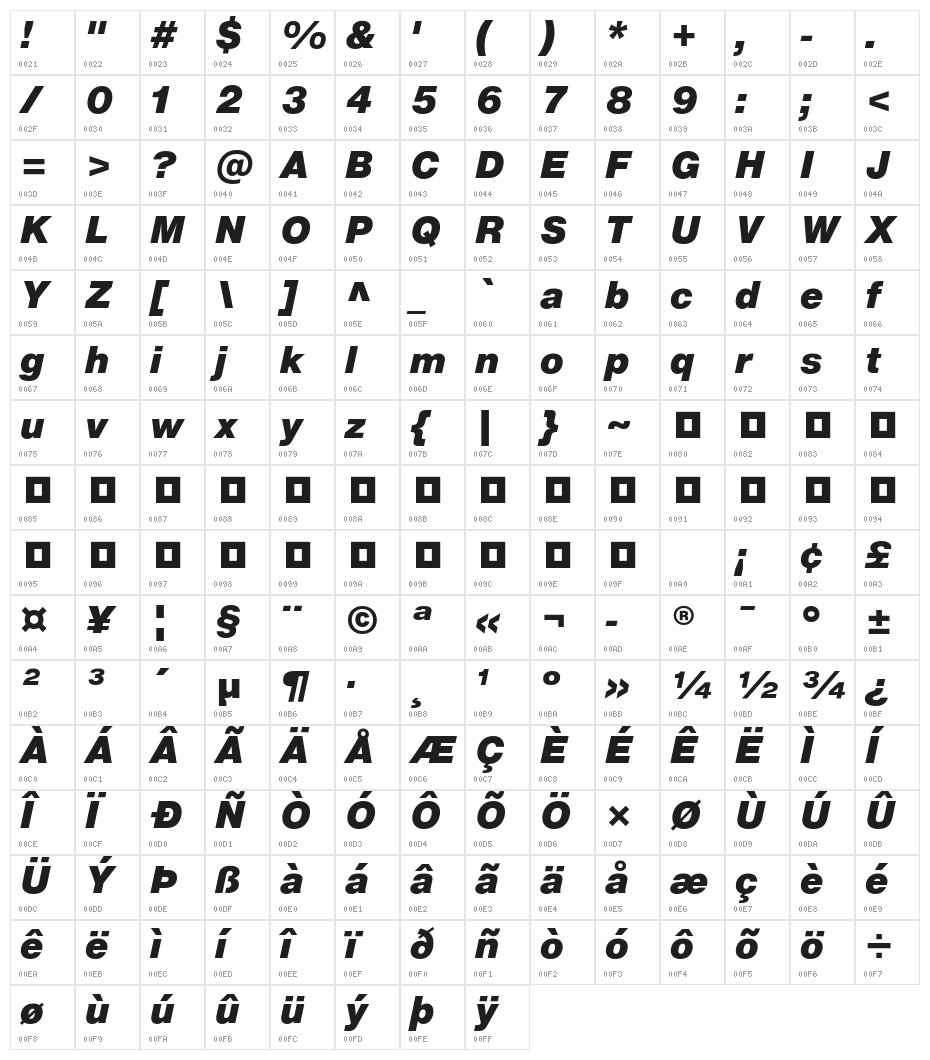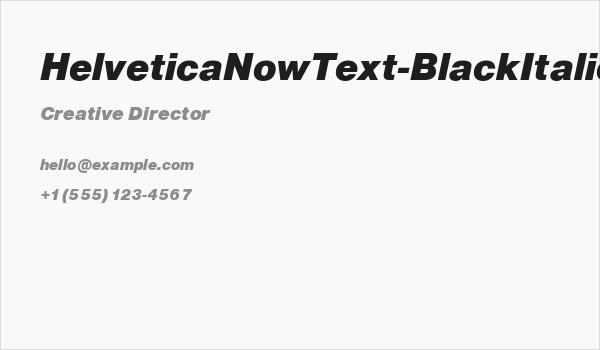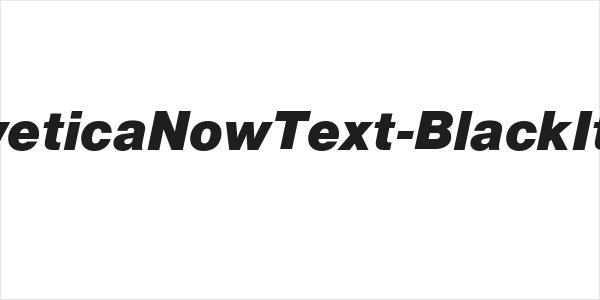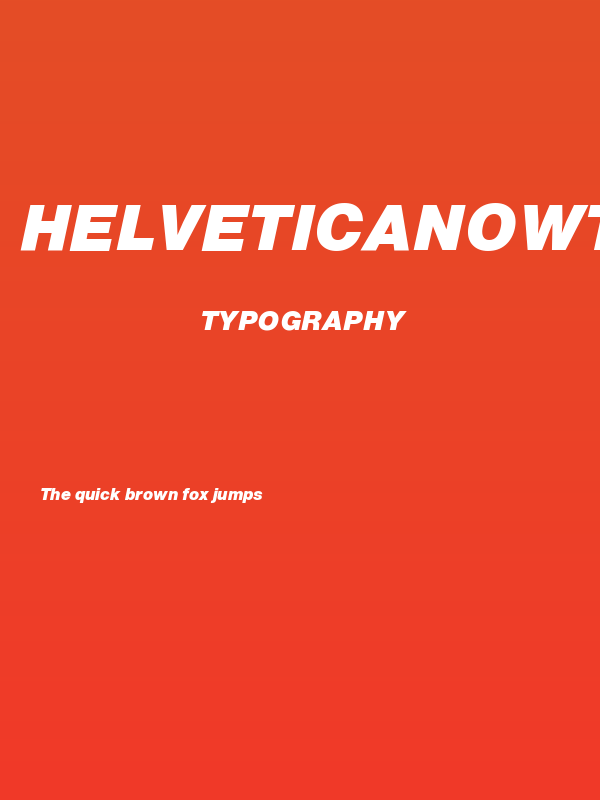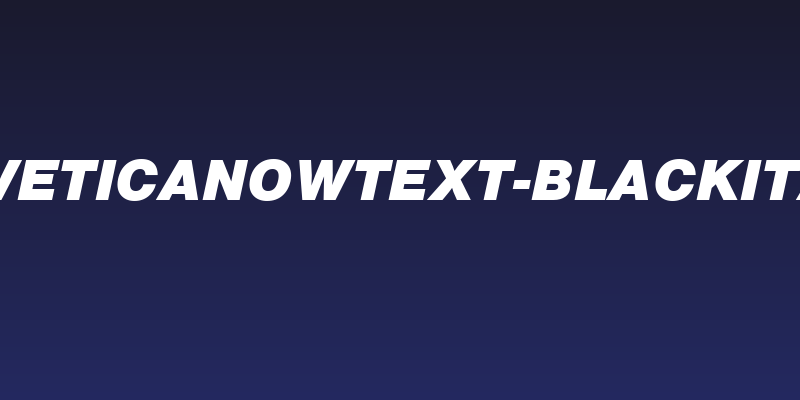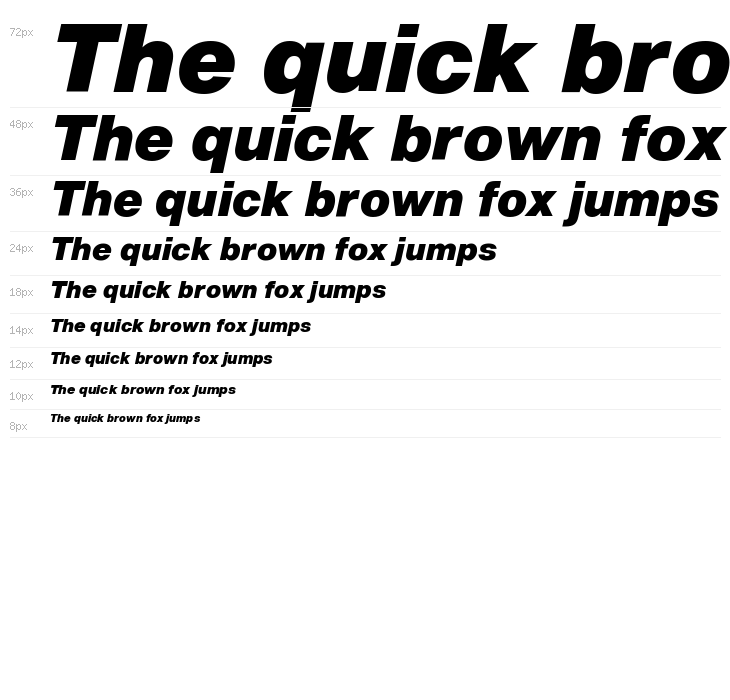
HelveticaNowText-BlackItalic Font
HelveticaNowText-BlackItalic Description
This font exhibits a bold and assertive style with a modern touch. The characters are italicized, giving them a dynamic and forward-leaning appearance. The strokes are thick and consistent, contributing to a high contrast that enhances readability. The overall design is clean and sans-serif, making it suitable for contemporary applications. The spacing between characters is tight, which adds to the compact and impactful look of the text. This font is versatile, ideal for making strong statements in headlines or logos, where clarity and presence are essential.
Proposed ProjectsIdeal for branding, advertising, headlines, and modern web design.